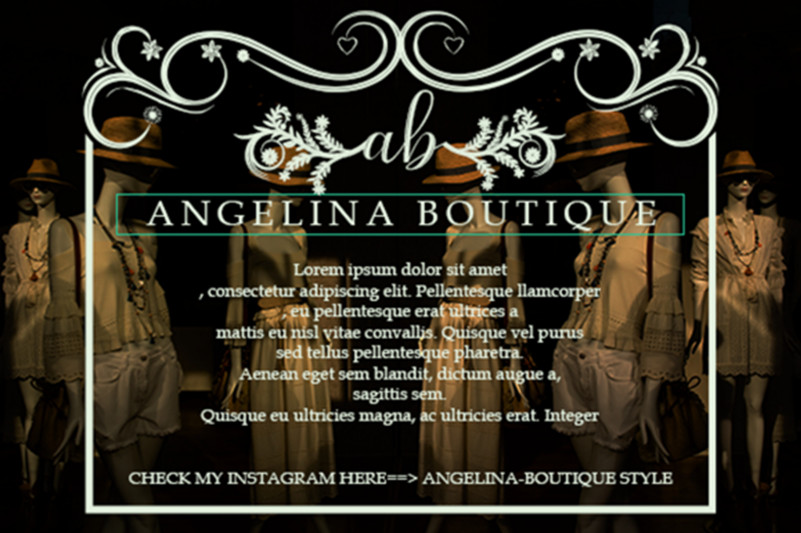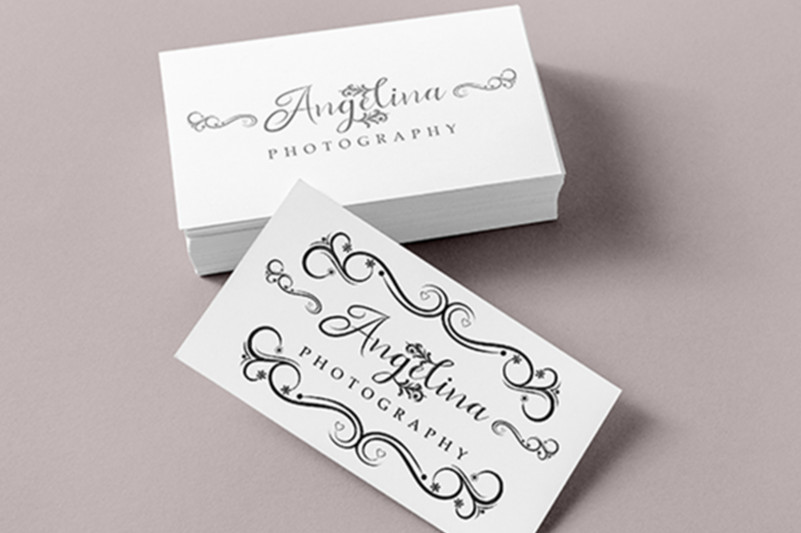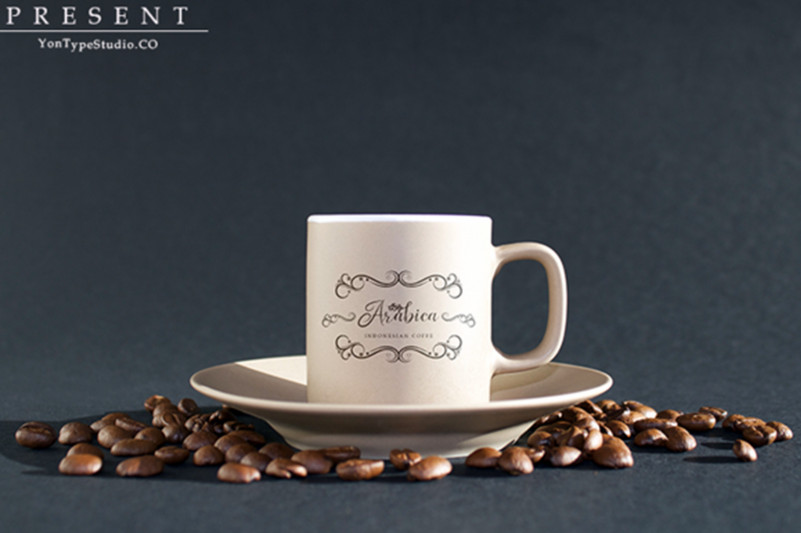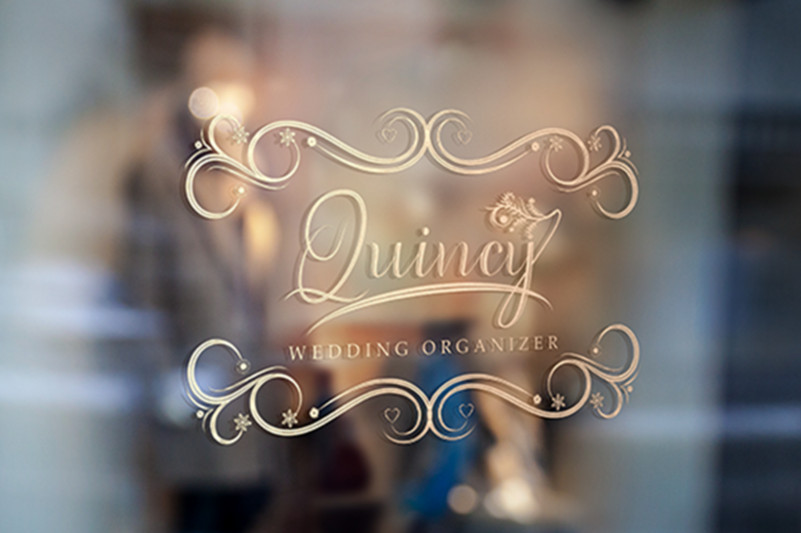
Mattina Script Font
Hello Gaes! How are you guys ? I am very good! Introducing, our newest product, we named this product Mattina Script Font, it’s a cursive font, with sweet touches and beautiful curves in each letter and complete with decorations. Mattina Script Font is great for: Branding, wedding invitations, fashion magazines, logos, signatures, and also suitable for watermark photography.